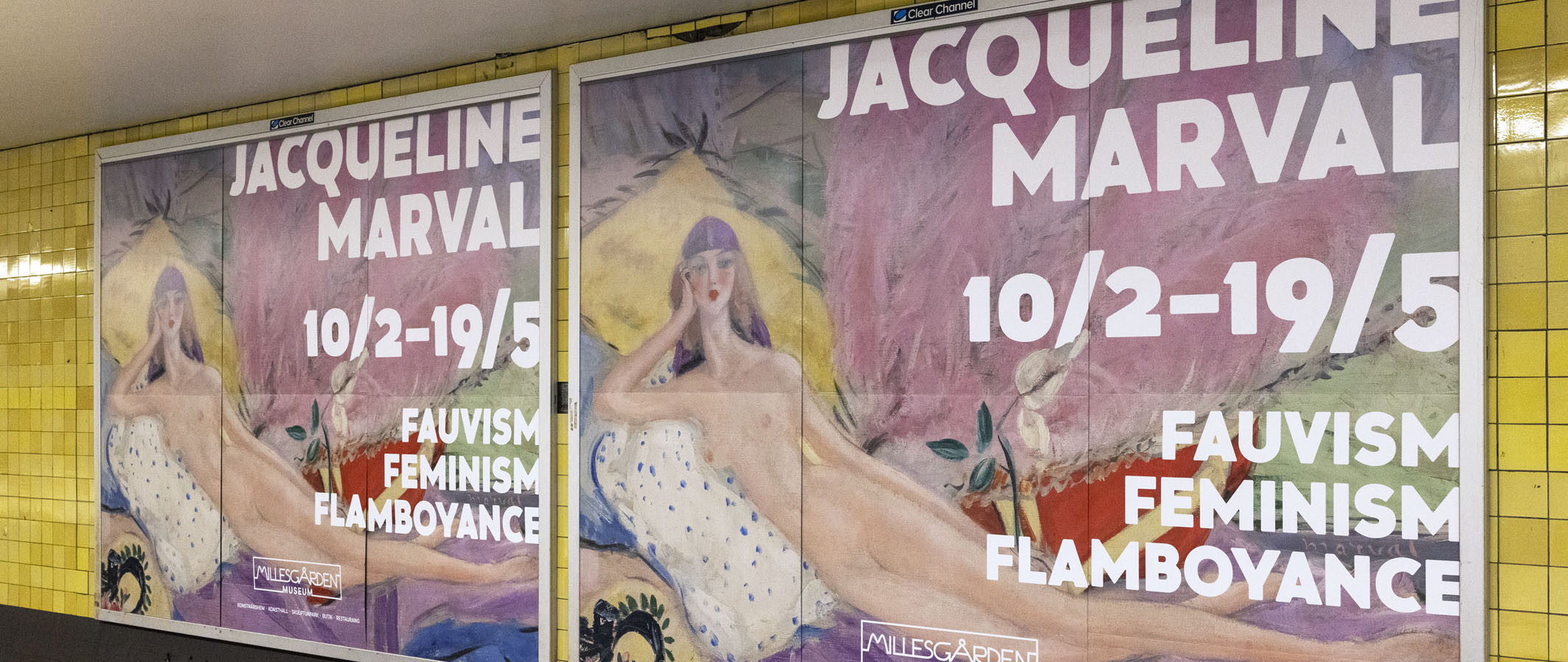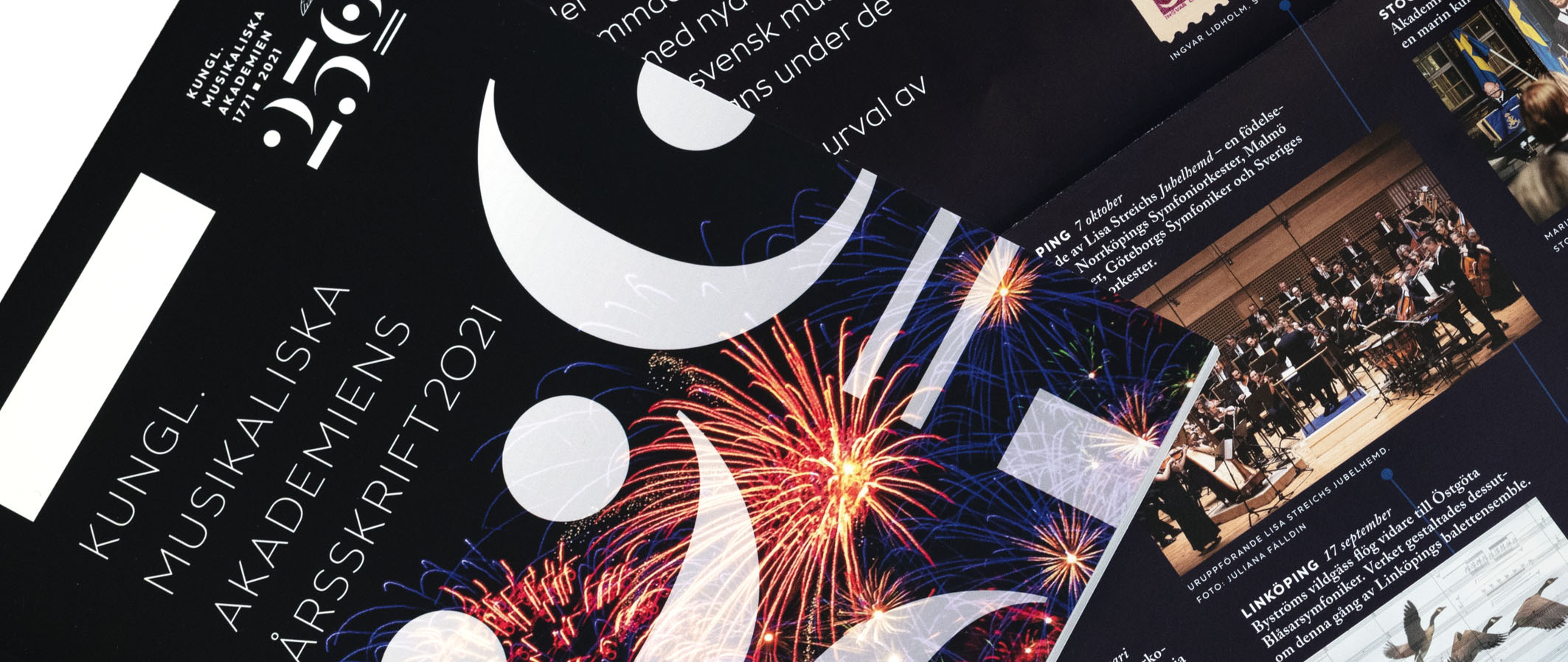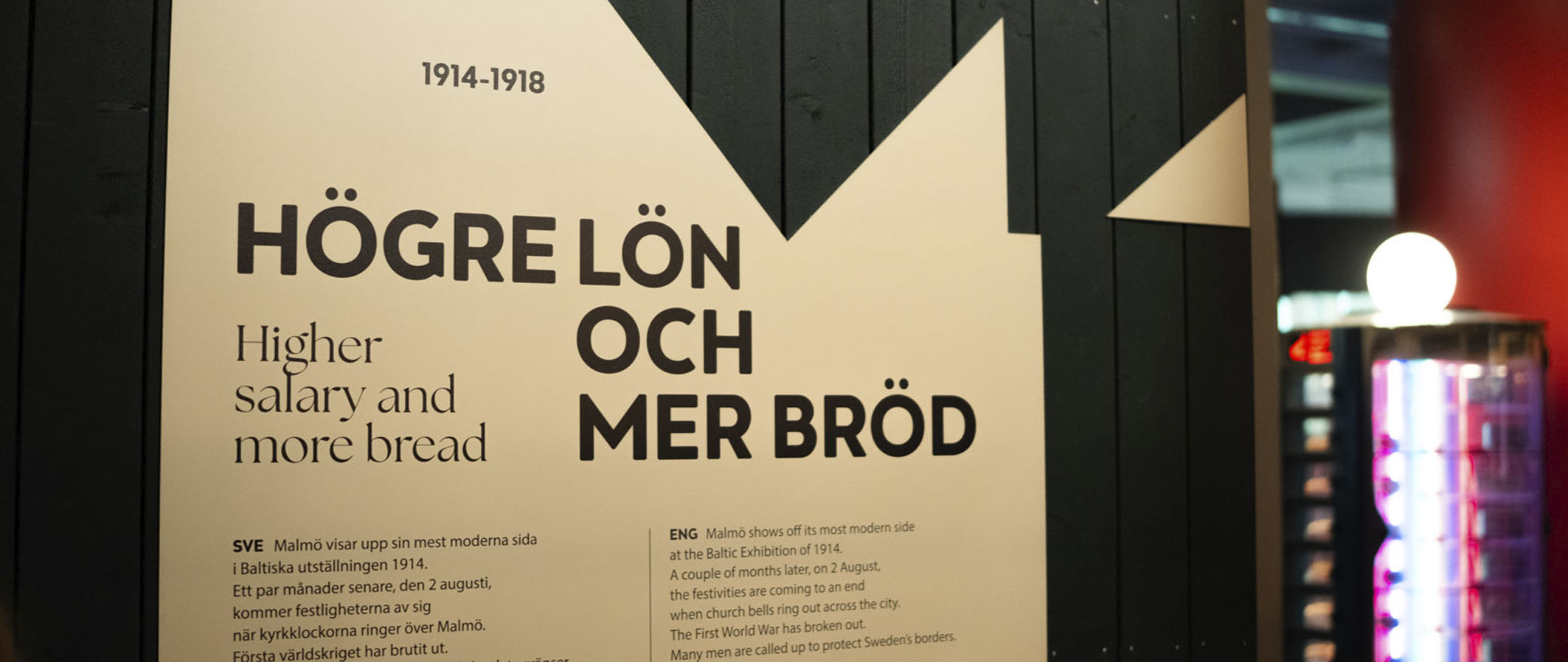
Hoxton Samuels II
Hoxton Samuels is a perfect allround font companion. Four weights will match whichever purpose.
Soft inner and outer corners will ensure a pleasant appearance in any size.